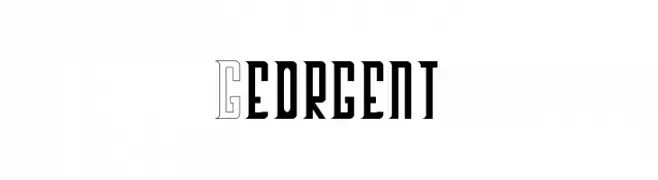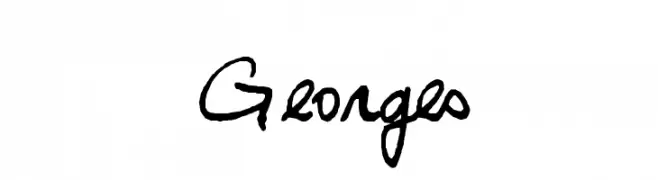
A bold, geometric font with sharp angles and subtle serifs.
A casual, handwritten font with a flowing and connected style.
A playful, handwritten font with dynamic strokes and a whimsical flair.
A playful, rounded font with smooth curves and consistent thickness.
A playful, hollow, rounded font with a whimsical and airy design.
A playful, thin, and rounded font with a whimsical style.
A bold, brush-style font with dynamic, handwritten strokes.
A flowing, cursive script font with elegant, connected characters and dynamic stroke variations.
A bold, flowing script font with decorative flourishes and cohesive design.